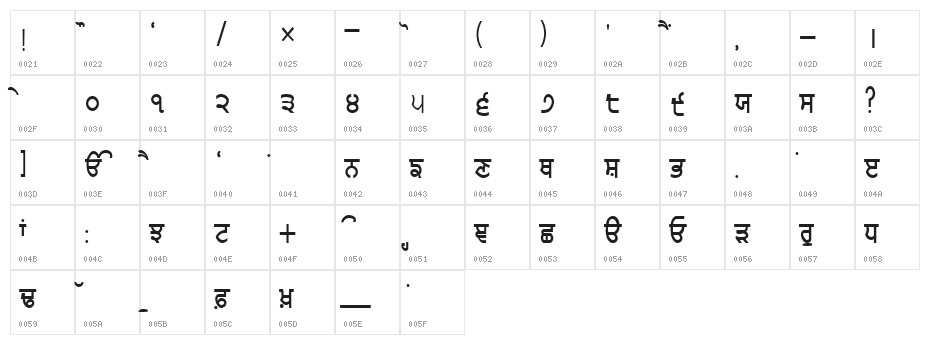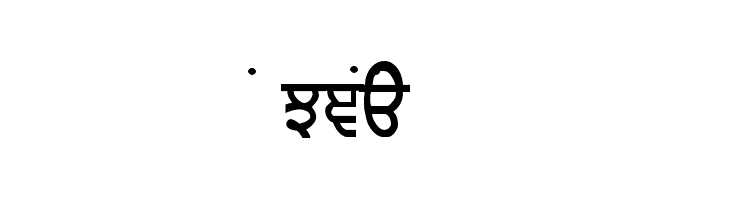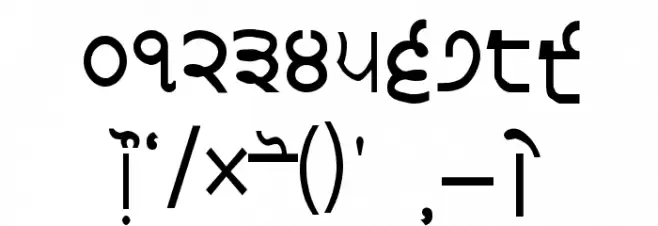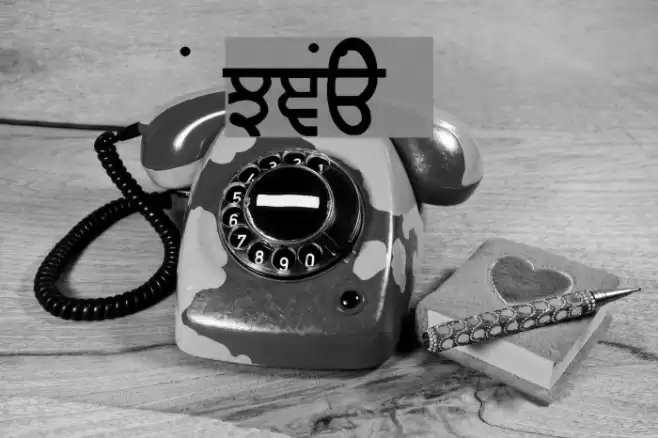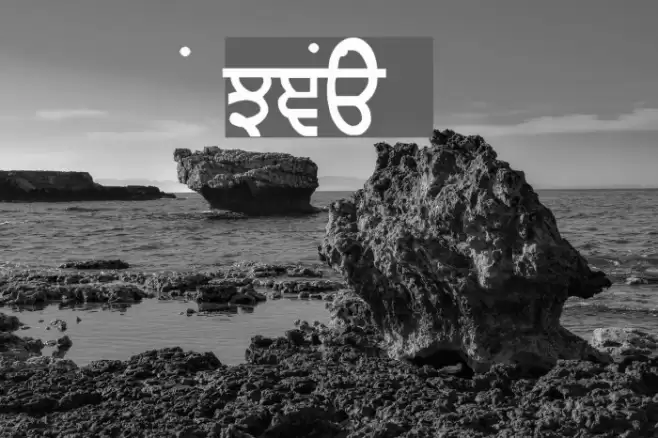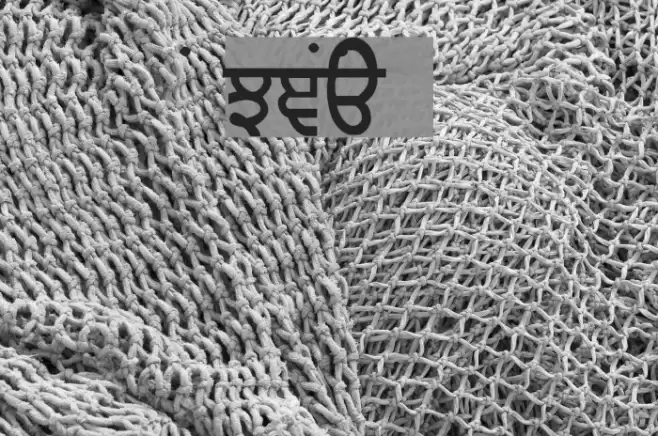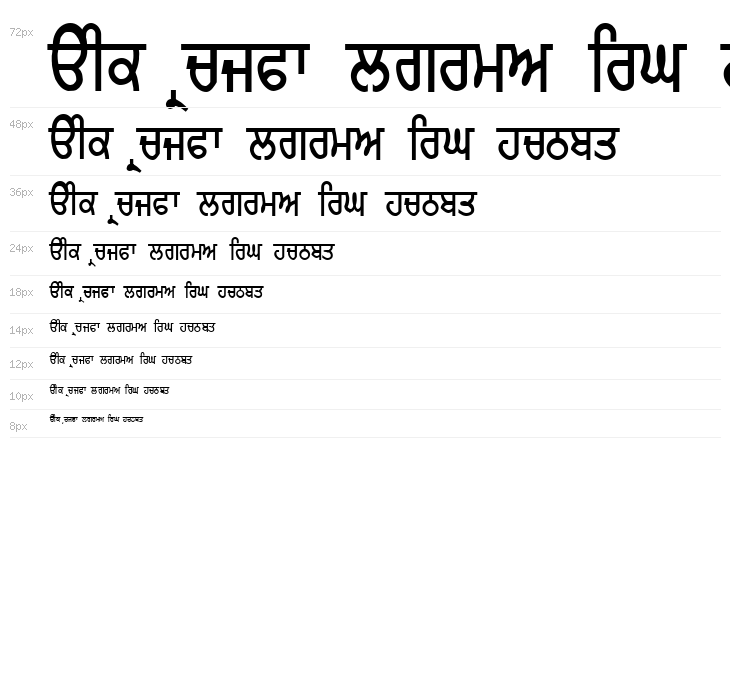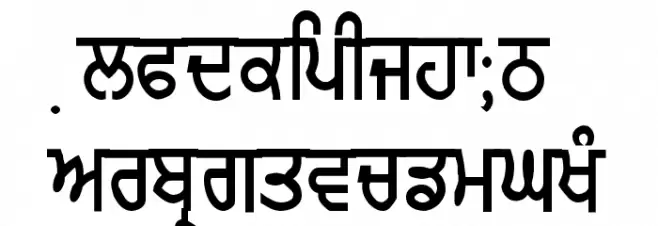
AMRITA Font
| Style général | Traditional |
| Cas d'utilisation | Headlines, Artistic projects, Cultural publications |
| Projets proposés | Ideal for cultural publications, traditional event invitations, and artistic projects that emphasize heritage. |